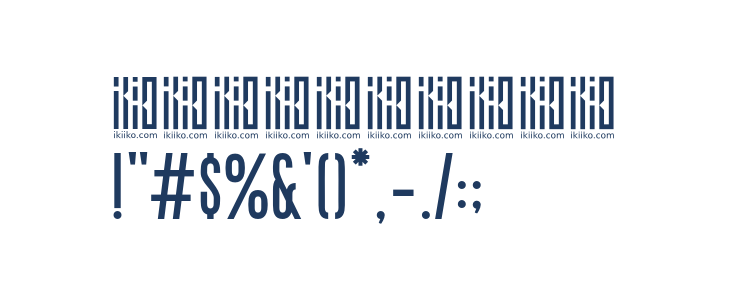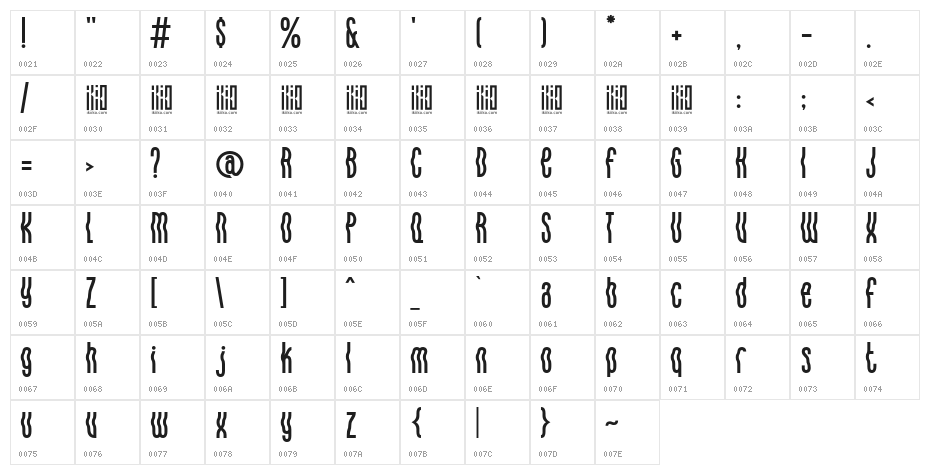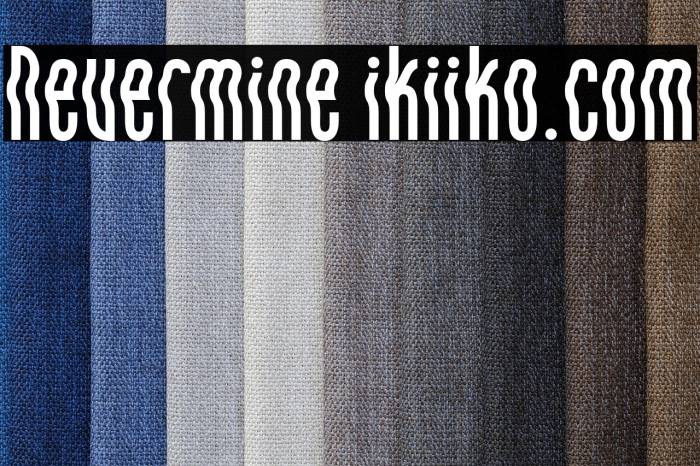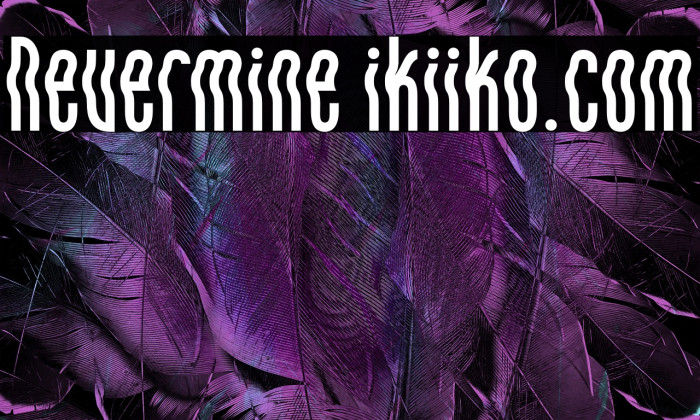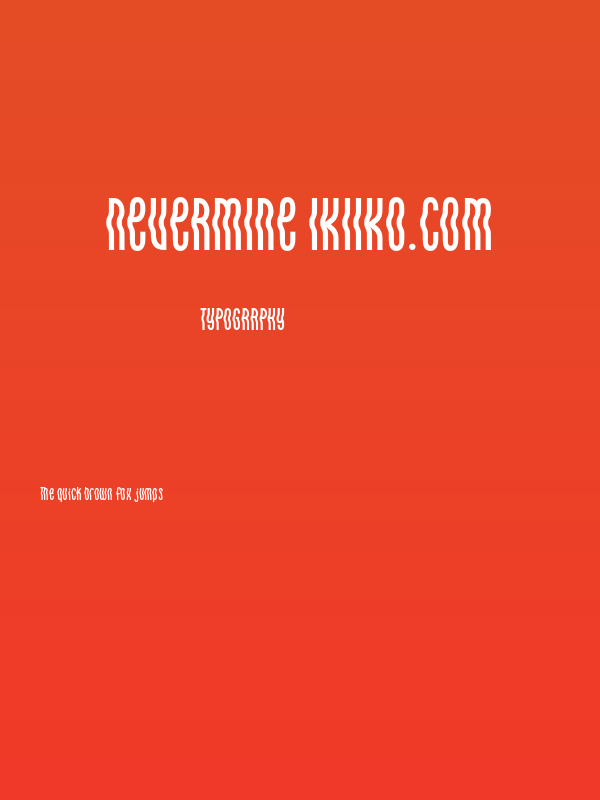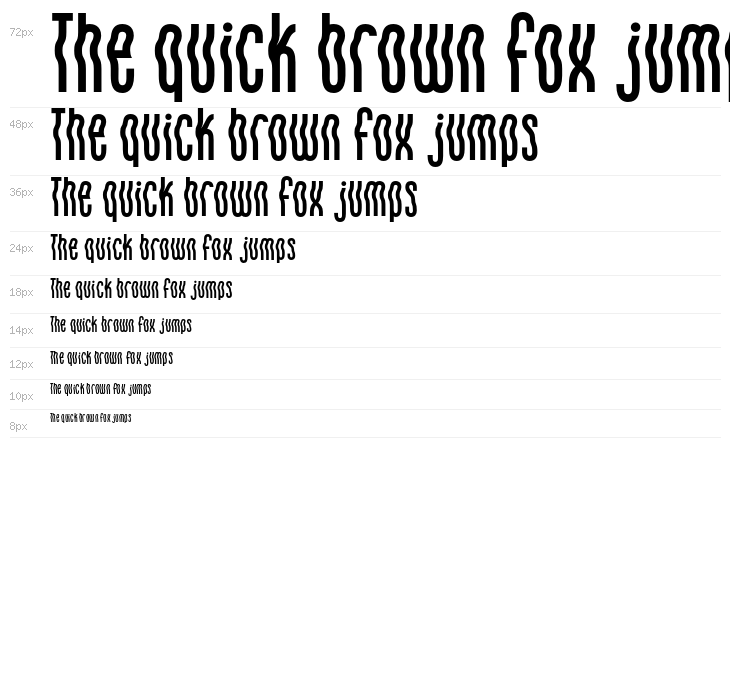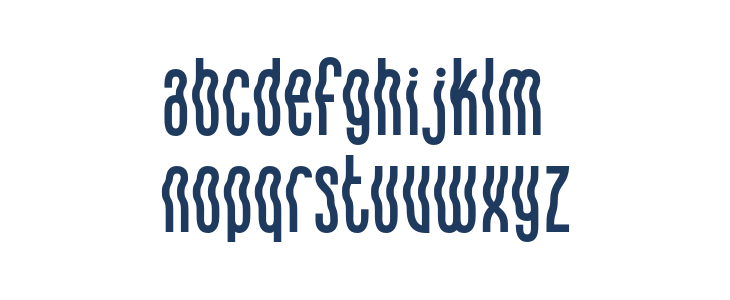
Nevermine ikiiko.com Font
Nevermine ikiiko.com Description
This font features a unique and modern design with elongated vertical strokes and rounded edges, creating a visually striking appearance. The characters are tall and narrow, giving a condensed look that is both bold and distinctive. The uppercase and lowercase letters maintain a consistent style, with a playful yet structured form. The numbers and special characters follow the same design principles, ensuring a cohesive look across all glyphs. This font's geometric and artistic flair makes it ideal for creative projects.